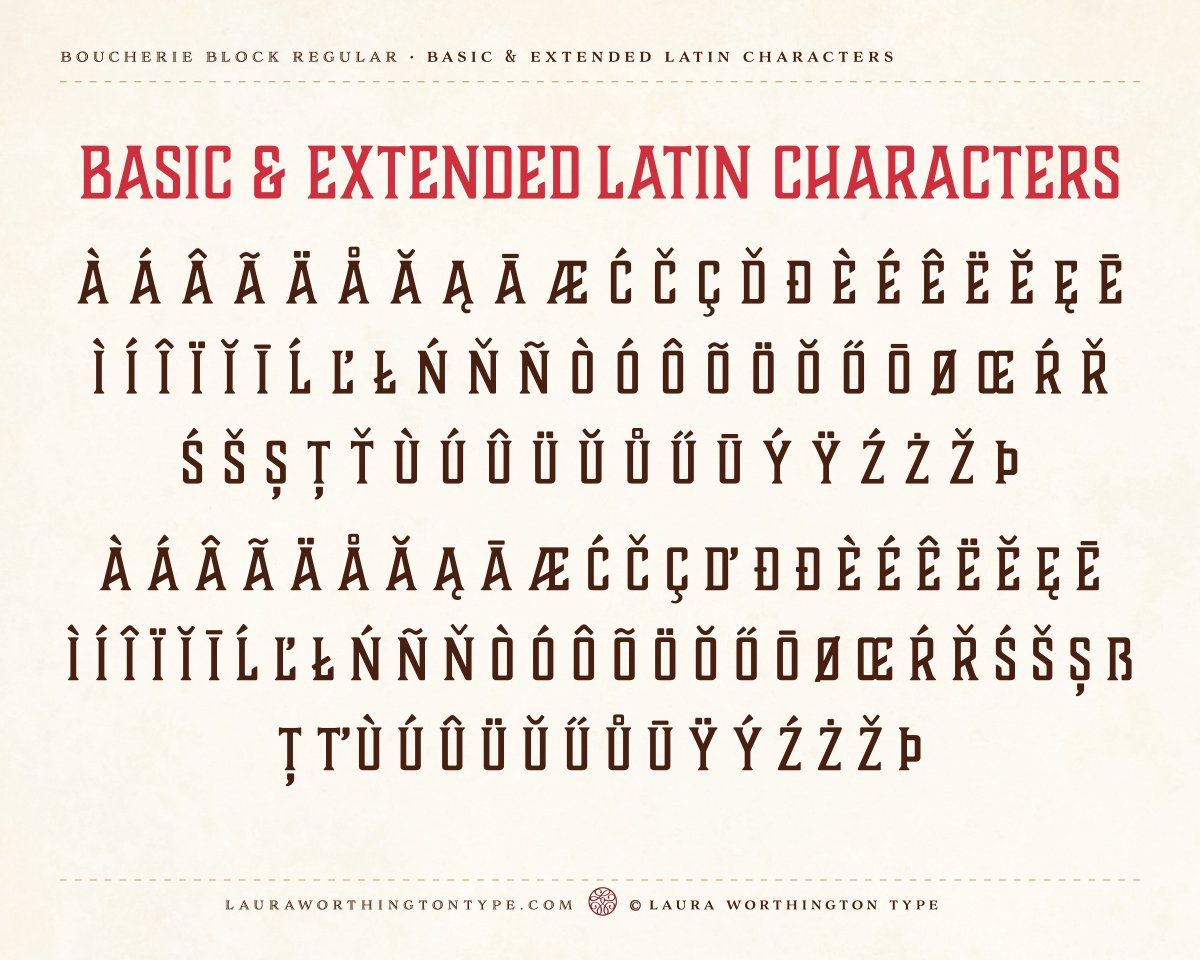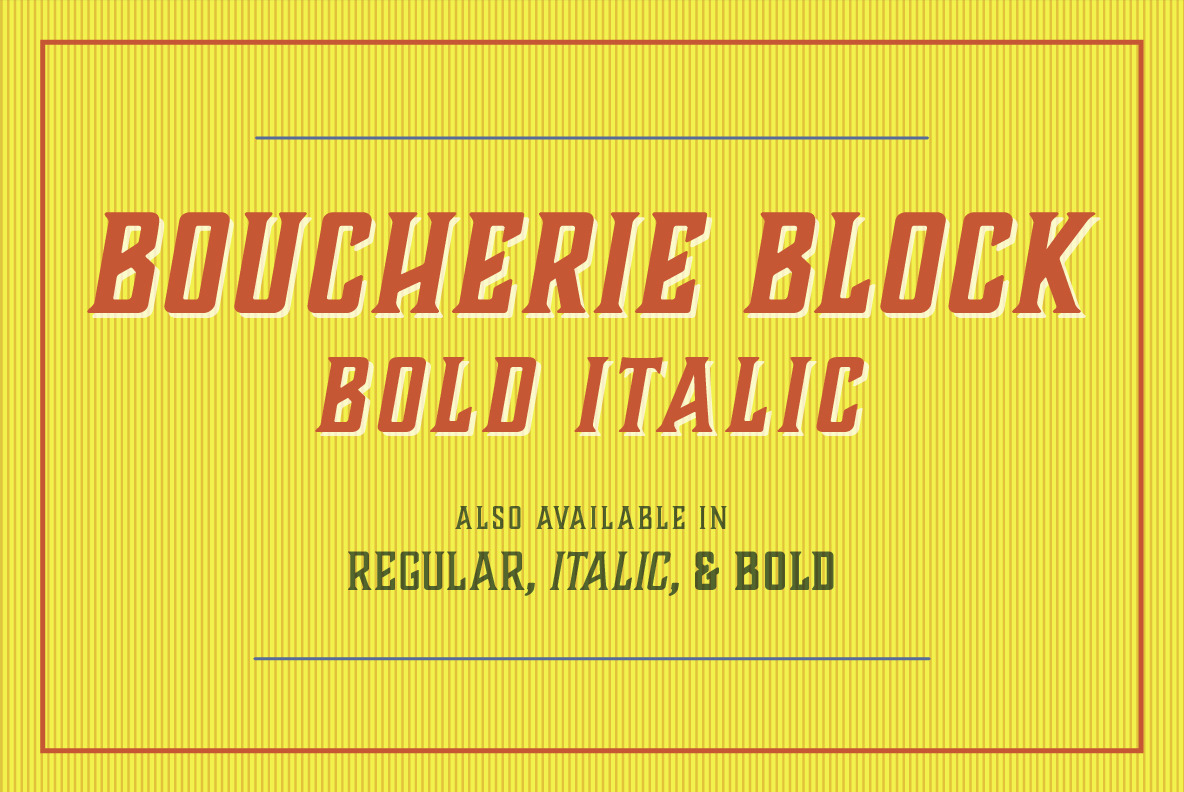
Web boucherie block font free download. Web explore boucherie block designed by laura worthington at adobe fonts. With its thick wedge serifs and steeply angled crossbars and.
Web boucherie block font family series mainly provide regular,italic,bold and other font styles. Web boucherie block font free download. Web boucherie block font family series mainly provide regular,italic,bold and other font styles. A decorative typeface with 4 styles, available from adobe.
Boucherie Block Regular Font Free Download - The boucherie block font is a display typeface inspired by the classic art of sign painting. Web boucherie block font family series mainly provide regular,italic,bold and other font styles. A decorative typeface with 4 styles, available from adobe. Web explore boucherie block designed by laura worthington at adobe fonts. With its thick wedge serifs and steeply angled crossbars and.
Boucherie Block Regular Font Free Download - Web explore boucherie block designed by laura worthington at adobe fonts. It is a free download for both. The boucherie block font is a display typeface inspired by the classic art of sign painting. A decorative typeface with 4 styles, available from adobe. Finding fonts that work together to capture the aesthetic of an era is one of the biggest.
Boucherie Block Regular Font Free Download - Web boucherie block font family series mainly provide regular,italic,bold and other font styles. Web boucherie block font free download. Web explore boucherie block designed by laura worthington at adobe fonts. Finding fonts that work together to capture the aesthetic of an era is one of the biggest challenges designers face. It is a free download for both.
Boucherie Block Regular Font Free Download - Web thousands of designers (famous or not) use the image font detection system to find a font or similar free fonts from an. Finding fonts that work together to capture the aesthetic of an era is one of the biggest challenges designers face. The boucherie block font is a display typeface inspired by the classic art of sign painting. With.
Boucherie Block Regular Font Free Download - The boucherie block font is a display typeface inspired by the classic art of sign painting. Web boucherie block font free download. Finding fonts that work together to capture the aesthetic of an era is one of the biggest challenges designers face. A decorative typeface with 4 styles, available from adobe. Web boucherie block font family series mainly provide regular,italic,bold.
Boucherie Block Regular Font Free Download - It is a free download for both. The boucherie block font is a display typeface inspired by the classic art of sign painting. Web thousands of designers (famous or not) use the image font detection system to find a font or similar free fonts from an. Web boucherie block font free download. A decorative typeface with 4 styles, available from.
Boucherie Block Regular Font Free Download - It is a free download for both. Finding fonts that work together to capture the aesthetic of an era is one of the biggest challenges designers face. With its thick wedge serifs and steeply angled crossbars and. Web boucherie block font family series mainly provide regular,italic,bold and other font styles. Web explore boucherie block designed by laura worthington at.
Boucherie Block Regular Font Free Download - Web boucherie block font free download. It is a free download for both. Web boucherie block font family series mainly provide regular,italic,bold and other font styles. Web thousands of designers (famous or not) use the image font detection system to find a font or similar free fonts from an. Finding fonts that work together to capture the aesthetic of.
Boucherie Block Regular Font Free Download - Web boucherie block font free download. The boucherie block font is a display typeface inspired by the classic art of sign painting. Web explore boucherie block designed by laura worthington at adobe fonts. Finding fonts that work together to capture the aesthetic of an era is one of the biggest challenges designers face. Web boucherie block font family series mainly.
Boucherie Block Regular Font Free Download - Web thousands of designers (famous or not) use the image font detection system to find a font or similar free fonts from an. Finding fonts that work together to capture the aesthetic of an era is one of the biggest challenges designers face. A decorative typeface with 4 styles, available from adobe. Web boucherie block font family series mainly provide.
Boucherie Block Regular Font Free Download - With its thick wedge serifs and steeply angled crossbars and. Web boucherie block font family series mainly provide regular,italic,bold and other font styles. Web explore boucherie block designed by laura worthington at adobe fonts. Web boucherie block font free download. It is a free download for both.